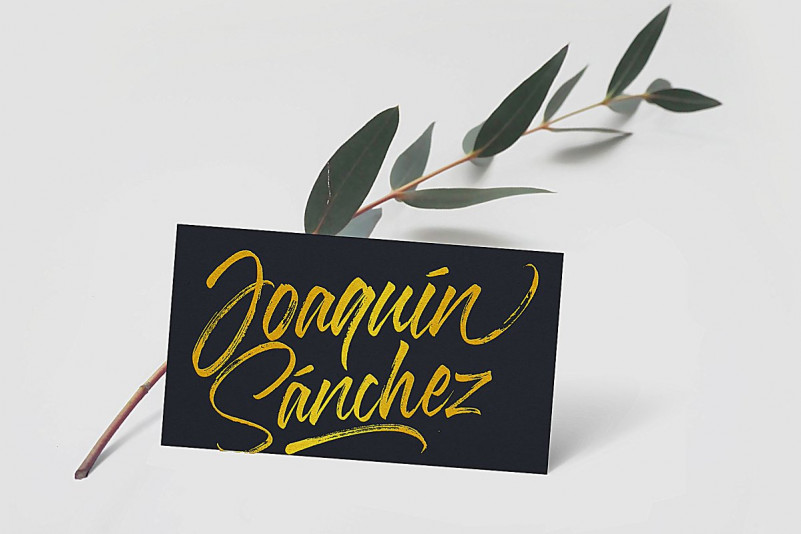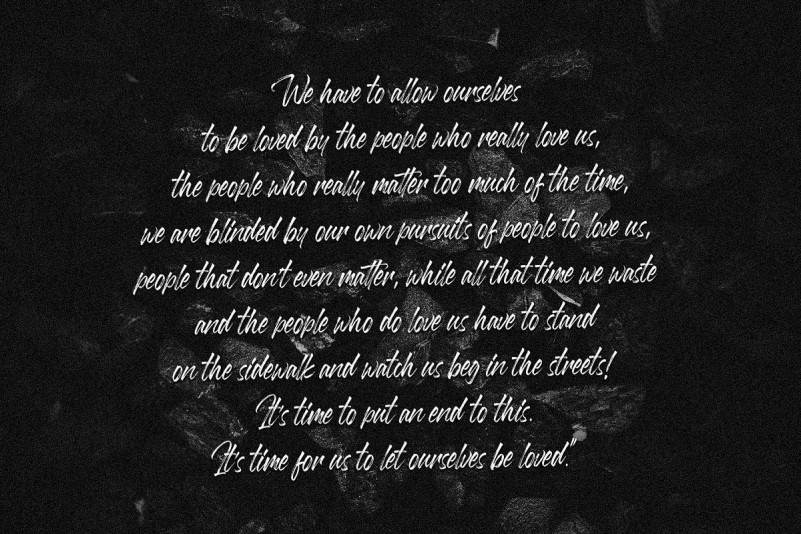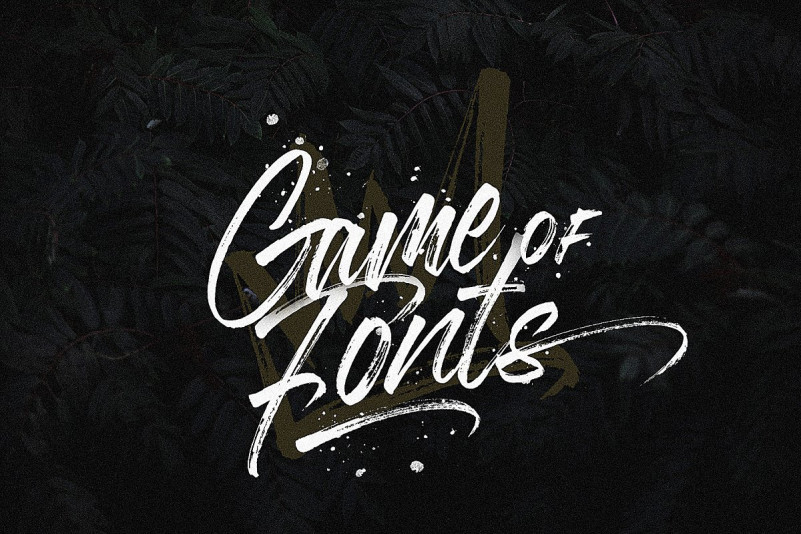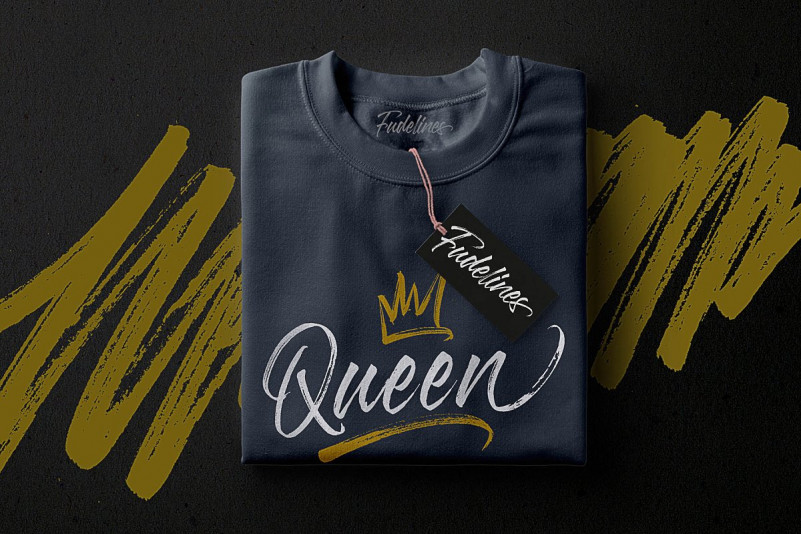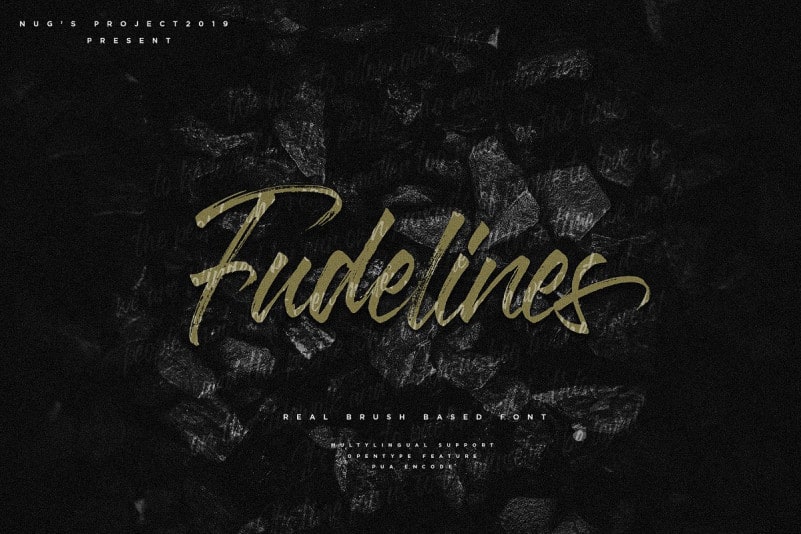
Fudelines Brush Font
Fudelines Brush Demo Font
Fudelines Font is a Modern Brush Typeface. Fudelines is a beautiful brush stroke font have consistent letters. font is perfect for your design such as printed pillow, t-shirt, video tumbnail, and others.